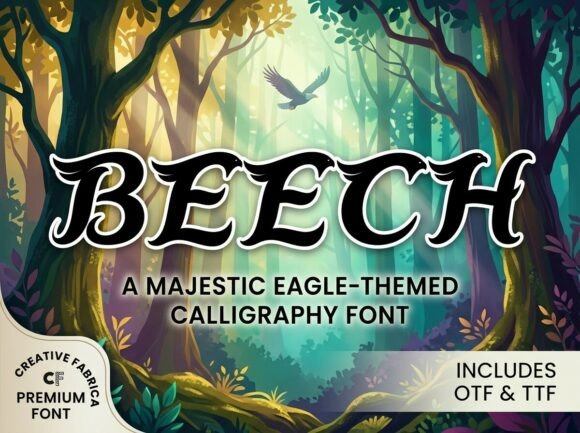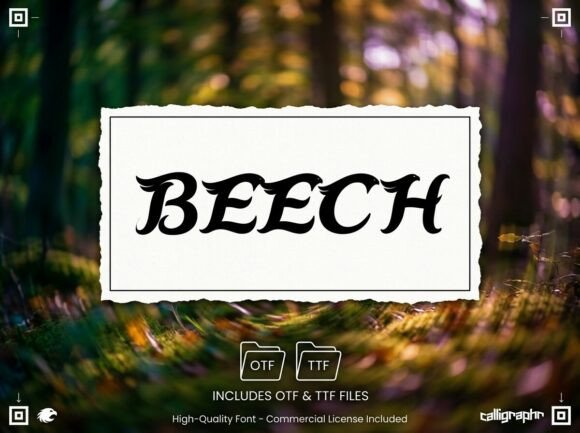
Soar to New Heights with Beech: The Ultimate Display Font for Bold Brands
In the world of typography, a font can be more than just a means of communication – it can be a statement, a reflection of a brand’s personality, and a way to connect with its audience on a deeper level. For those looking to make a lasting impression, Beech is a premium display font that embodies the power, freedom, and majesty of a predator in flight. Inspired by the sharp, distinctive profile of an eagle’s head, Beech is the perfect choice for outdoor adventure branding, high-impact sports logos, independent wildlife conservation headers, and cinematic social media assets that aim to capture the spirit of nature.
The Inspiration Behind Beech
Beech is more than just a font – it’s an experience. Its unique, bold letterforms are designed to evoke the feeling of soaring through the skies, with each character capped with the sharp, commanding profile of an eagle’s head. This distinctive feature gives Beech its “majestic-wilderness” soul, making it the perfect fit for brands that want to convey a sense of power, freedom, and adventure.
Design Features of Beech
Beech boasts a range of design features that make it a standout in the world of typography. Its bold, sweeping letterforms are perfect for headlines, titles, and short phrases, while its sharp, eagle-inspired profile adds a touch of sophistication and elegance. The font’s commanding silhouette makes it perfect for use in a variety of applications, from outdoor adventure branding to high-impact sports logos.
Applications for Beech
Beech is a versatile font that can be used in a wide range of applications, including:
- Outdoor Adventure Branding: Perfect for brands that want to convey a sense of power, freedom, and adventure, Beech is ideal for use in logos, marketing materials, and website headers.
- High-Impact Sports Logos: With its bold, commanding silhouette, Beech is the perfect choice for sports teams and brands that want to make a lasting impression.
- Independent Wildlife Conservation Headers: Beech’s majestic-wilderness soul makes it a natural fit for wildlife conservation organizations and initiatives.
- Cinematic Social Media Assets: Use Beech to create eye-catching social media assets that capture the spirit of nature and leave a lasting impression on your audience.
Why Choose Beech?
In a crowded marketplace, it’s hard to stand out from the competition. That’s where Beech comes in – a premium display font that embodies the power, freedom, and majesty of a predator in flight. With Beech, you can:
- Create a lasting impression: With its bold, commanding silhouette, Beech is sure to grab attention and leave a lasting impression on your audience.
- Convey a sense of power and adventure: Perfect for brands that want to evoke the feeling of freedom and adventure, Beech is the ultimate display font.
- Stand out from the competition: With its unique, eagle-inspired profile, Beech is a font that will set you apart from the competition.
In conclusion, Beech is a premium display font that embodies the power, freedom, and majesty of a predator in flight. With its bold, sweeping letterforms and sharp, eagle-inspired profile, Beech is the perfect choice for outdoor adventure branding, high-impact sports logos, independent wildlife conservation headers, and cinematic social media assets. Whether you’re looking to create a lasting impression, convey a sense of power and adventure, or stand out from the competition, Beech is the ultimate font for bold brands.